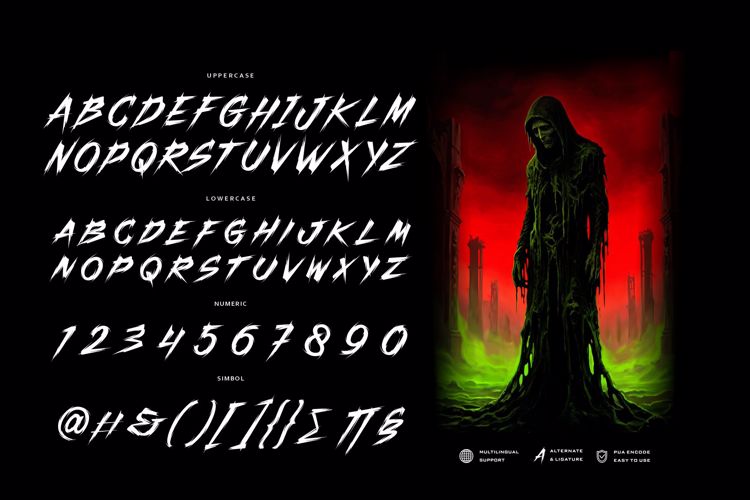
Trash Brutal Font
Unleash raw energy and unapologetic chaos with Trash Brutal, a striking broken-brush typeface designed to make a massive impact. Forged with a dark, gothic-magick aesthetic, this font perfectly captures the gritty essence of urban streetwear and the intense vibes of the alternative and heavy metal scenes.
Trash Brutal isn't just a font; it's a visual statement. The aggressive brush strokes, combined with intricate, jagged details, give your artwork a timeless yet fiercely modern contrast. Whether you are designing premium streetwear apparel, dark fantasy book covers, or striking poster art, Trash Brutal delivers a commanding visual identity that demands attention.